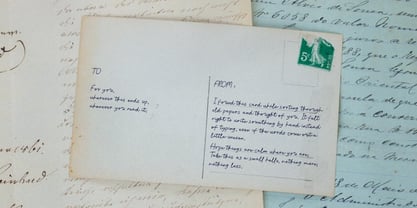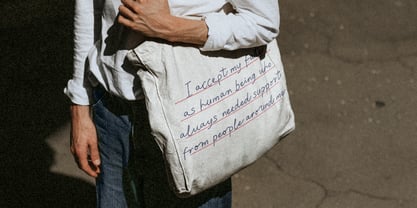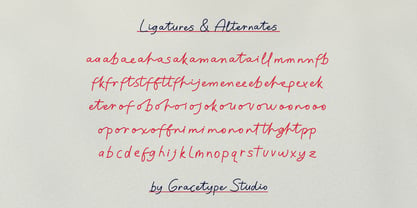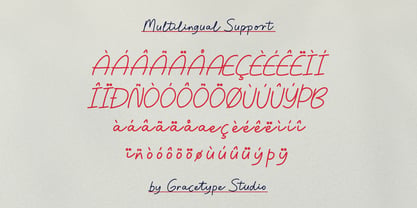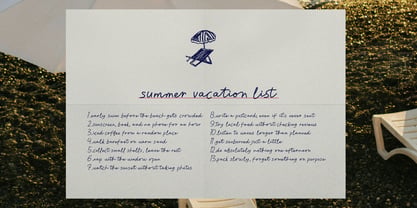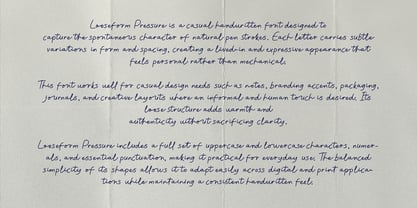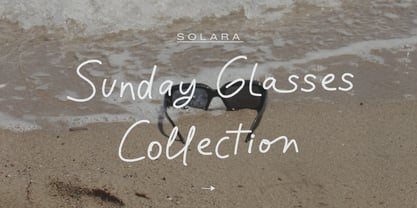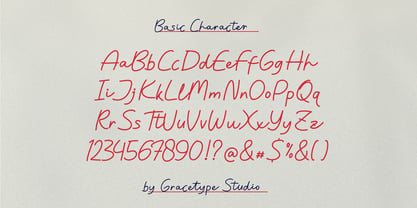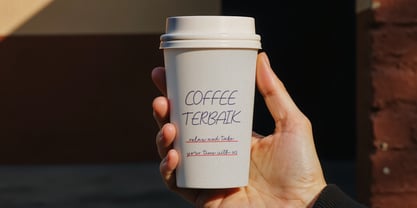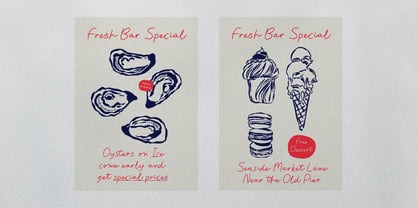
Looseform Pressure
by Tini Fitriani
The Looseform Pressure Font Family was designed by and published by Tini Fitriani. Looseform Pressure contains 2 styles and family package options. More about this family
Looseform Pressure | Casual Handwritten Script, from Gracetypestudio, suitable for any projects such as: logos, branding projects, homeware designs, product packaging, mugs, quotes, posters, shopping bags, t-shirts, book covers, name card, invitation cards, greeting cards, label, photography, watermark, special events, and all your other lovely projects that need a Script taste.